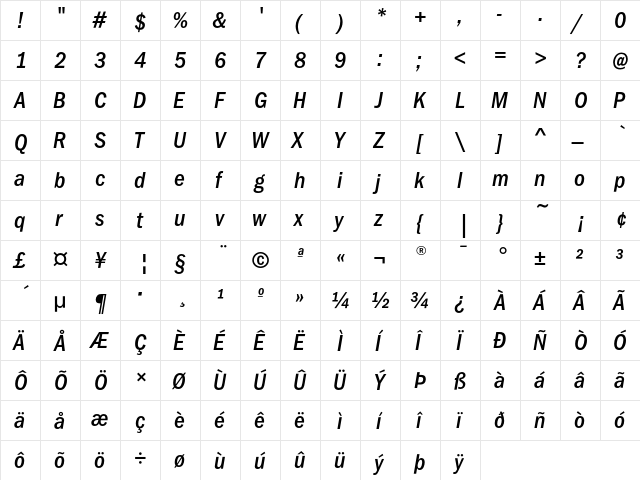
FranklinGothicEF MediCondIta
Design Context for FranklinGothicEF Typeface
FranklinGothicEF takes a clean, functional approach — its unadorned letterforms prioritise legibility and work reliably across screen and print environments. The condensed width makes it efficient for tight spaces without sacrificing legibility.
Font Pairing: Works well alongside a characterful serif or display font that can carry the expressive load while FranklinGothicEF handles the functional copy.
Pro Tip: Try FranklinGothicEF in all-caps with moderate tracking for navigation and label copy — it performs well in systematic UI contexts.